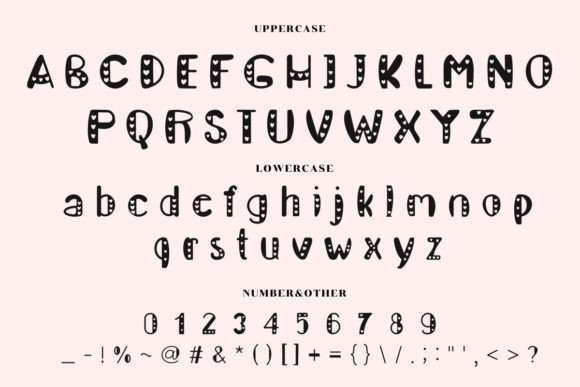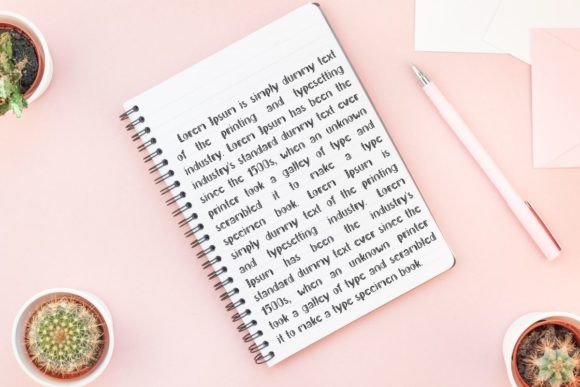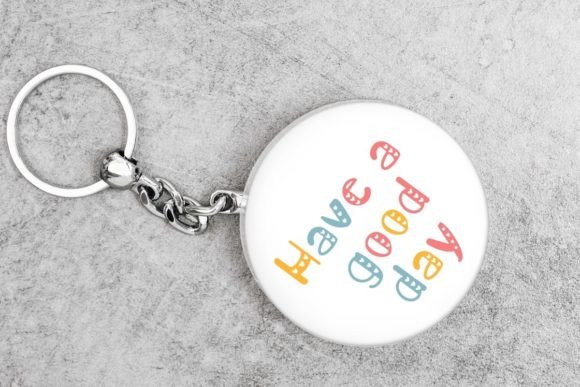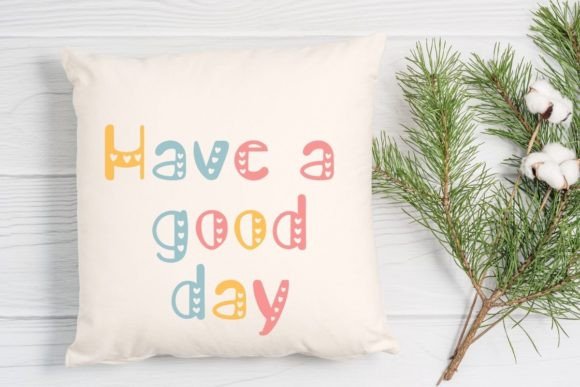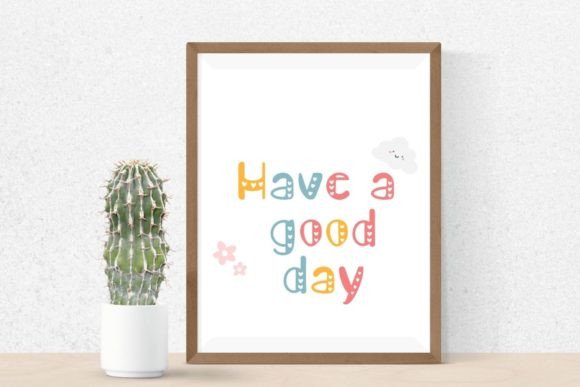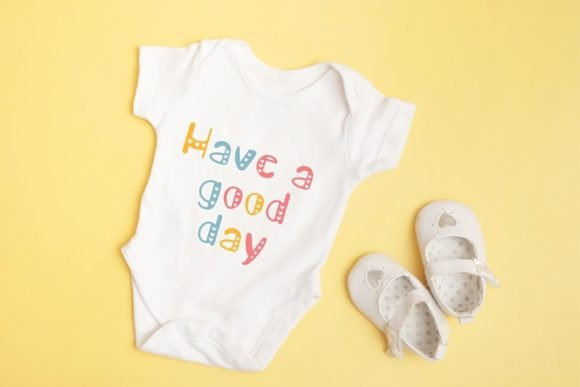
The Beat Goes On: Discovering the Heart Beat Font
Who hasn’t experienced that moment when a spark of creativity strikes, and you’re inspired to create something truly special? Maybe it’s the perfect phrase for a birthday card, or a cute logo for a new project. Whatever the idea, you want it to stand out and capture the essence of your message. For designers looking to add a playful touch to their designs, the Heart Beat Font is just what you need.
This charming display font is designed to bring a groovy and fun vibe to your projects. With its cute and playful feel, it’s perfect for heart beat-themed designs, kids’ designs, birthday invitations, and more. The Heart Beat Font is a valuable addition to any designer’s toolkit, offering endless possibilities for creative expression.
Heart Beat Font Key Features
- Font Family: Heart Beat Font is a unique, hand-drawn font designed to evoke a sense of emotion and energy.
- Unique Characteristics: Heart Beat Font features dynamic, hand-painted letterforms with varying line weights, giving it a distinctive, artistic feel.
Heart Beat Font Review
Overall, I found the Heart Beat Font to be an interesting addition to any design project. ✨ One of the standout features is its playful and energetic vibe, making it perfect for creative and modern designs. The font is highly customizable, with a wide range of styles and options available to suit your needs.
Another aspect that I appreciated was the font’s versatility. ✨ It works well for both digital and print designs, making it a great choice for a variety of projects. The font is also highly legible, which is essential for ensuring that your message is conveyed clearly and effectively.
While the Heart Beat Font has many strengths, there are a few limitations that should be noted. ⚠️ One of the main issues is that the font can be overwhelming in larger text sizes, making it less suitable for headlines or titles. Additionally, the font may not be the best choice for more formal or professional designs, as its playful vibe may not be in line with the tone you’re aiming for.
Conclusion
In conclusion, the Heart Beat Font is a great choice for designers looking for a fun and modern font to add some personality to their projects. While it may have some limitations, its versatility and high level of customization make it a valuable asset to any design toolkit.
- Playful and energetic vibe
- Works well for both digital and print designs
- Highly legible
The Heart Beat font is ideal for:
- Designing Valentine’s Day cards and gifts.
- Creating romantic and elegant invitations.
- Adding a touch of whimsy to children’s birthday cards.
Tips for Getting the Most Out of the Heart Beat Font
To get the most out of the Heart Beat font, try:
- Pairing it with bold, bright colors.
- Using it in conjunction with other playful fonts.
- Experimenting with different font sizes and styles.
Alternatives to “Heart Beat Font” for Designers
Great Vibes is a beautiful, handwritten font perfect for creating a relaxed, casual atmosphere. It’s ideal for use in wedding invitations, greeting cards, and social media posts. Compared to Heart Beat Font, Great Vibes has a more elegant and refined feel, making it suitable for a wider range of applications.
Pacifico is a elegant and sophisticated font that exudes a sense of calmness and serenity. It’s perfect for use in branding, packaging, and advertising materials where a touch of elegance is required. Compared to Heart Beat Font, Pacifico has a more polished and refined feel, making it suitable for high-end applications.